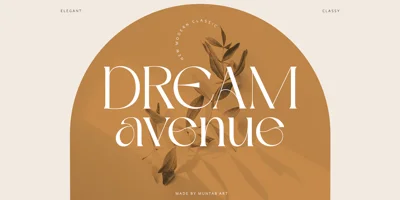
Dream Avenue Font
Dream Avenue Font is perfect for aspirational lifestyle branding, luxury real estate marketing, dream destination campaigns, upscale boutique signage, elegant fashion magazines, sophisticated personal coaching materials, inspirational quote graphics, high-end interior design portfolios, premium beauty products, and motivational success branding.
What makes Dream Avenue Font exciting is its aspirational elegance and sophisticated dreaminess that captures the essence of life's most beautiful possibilities with refined grace and inspirational appeal. This enchanting typeface embodies the spirit of pursuing dreams with its flowing character forms and avenue-inspired proportions that evoke tree-lined boulevards in prestigious neighborhoods, elegant storefronts on fashionable streets, and the kind of sophisticated lifestyle that represents the fulfillment of personal aspirations. The font's dreamy character creates an immediate sense of possibility and the sophisticated elegance that comes from turning dreams into reality.
Dream Avenue Font family includes regular weight with aspirationally crafted character designs featuring elegant curves and sophisticated proportions. The typeface maintains excellent readability while showcasing its distinctive inspirational personality through gracefully designed letterforms that seem to flow like a beautiful avenue leading toward the realization of life's most cherished dreams.
Lifestyle brand designers consistently choose Dream Avenue Font for projects requiring authentic aspirational appeal and sophisticated credibility. This remarkable typeface brings the elegance of dream fulfillment to brand communications, combining inspirational aesthetics with refined sophistication to create memorable aspirational experiences. The elegantly designed characters ensure sophisticated positioning across all applications, making it essential for luxury brands, lifestyle coaches, and any organization seeking to communicate the transformative power of dreams and the sophisticated beauty that comes from creating the life you've always imagined through Dream Avenue Font.